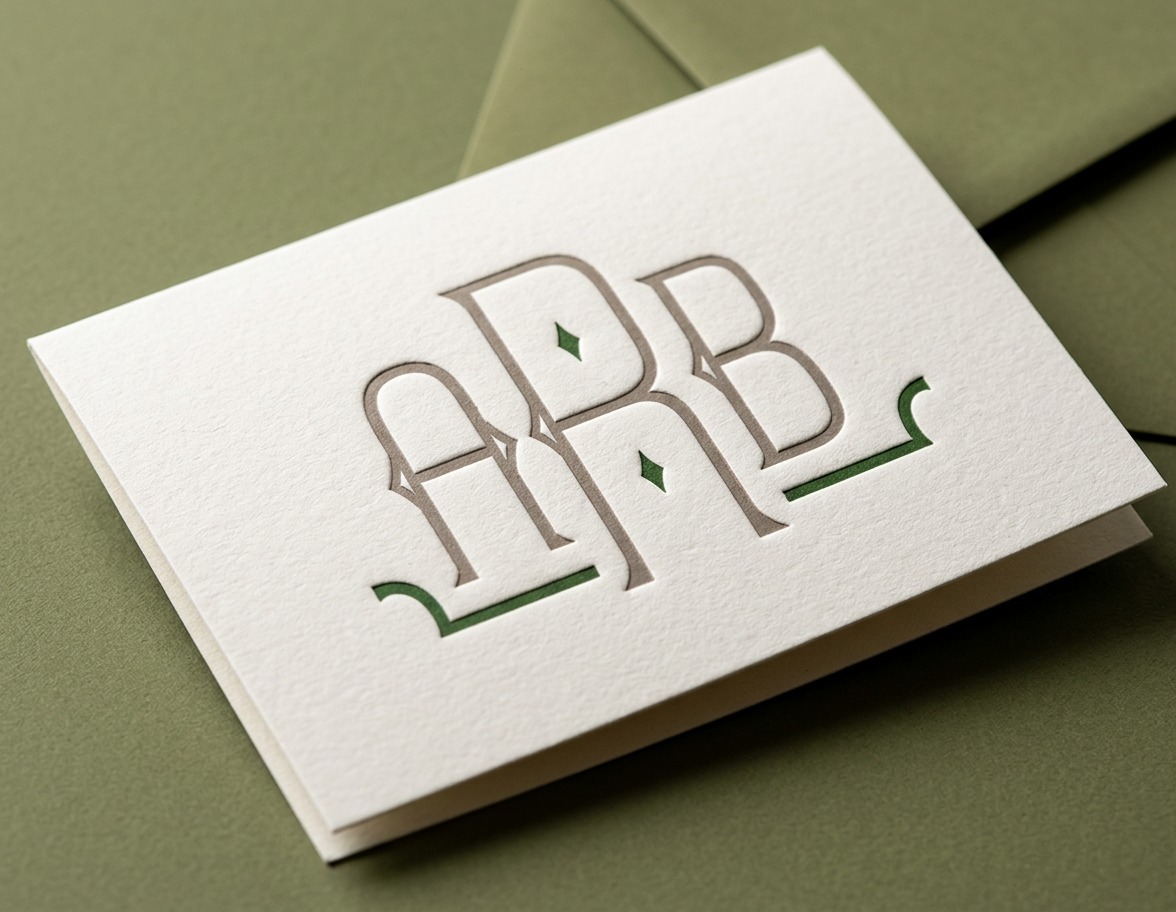
Monogram Meridian Font for Print
Monogram Meridian is a timeless, elegant monogram font featuring graceful arches, beautifully curved legs, and refined diamond accents. The set includes 26 side letters, 26 center letters, and five coordinating frames, giving you endless ways to create a polished, personalized design.
The result is a beautiful font that can be used as a 1, 2, or 3-letter monogram, or as a name.